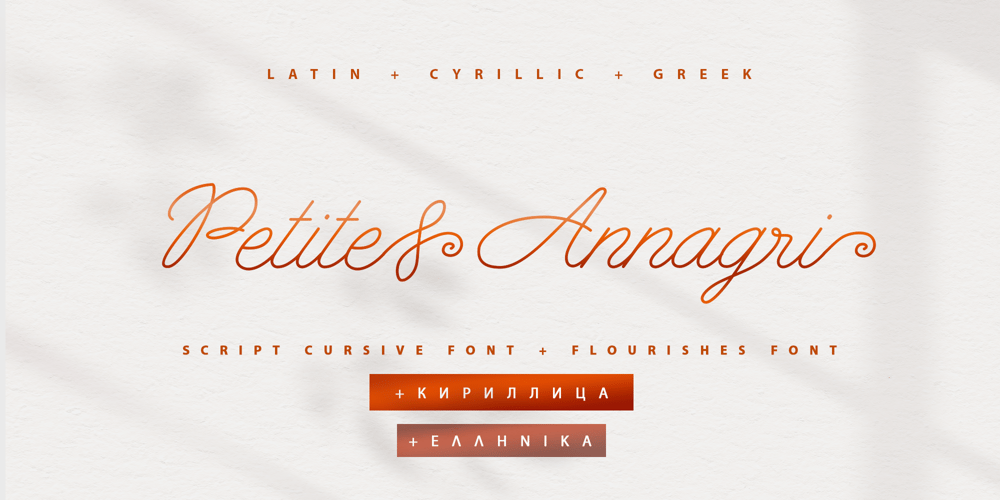
Petite Annagri Cyrillic
Petite Annagri Cyrillic font
Petite Annagri Cyrillic Font Family was designed by Iryna Dviliuk and published by Ira Dvilyuk. Petite Annagri Cyrillic contains 2 styles and family package options. The font pair Petite Annagri Cyrillic will look gorgeous on wedding stationery, love stories, branding materials, monoline logos, business cards, Insta quotes, elegant fashion sketches, and much more.Petite Annagri script font contains the Cyrillic and Greek glyphs too.Petite Annagri is a pretty monoline cursive font, plus a Symbols font with 36 lovely monoline swirls, flourishes, and illustrations.Petite Annagri script font contains a full set of uppercase and lowercase letters. Petite Annagri Symbols is a font with over 36 hand-drawn monoline elements, illustrations, and swashes that can help you to make your design unique and matchless. Combine and merge swashes, flourishes, and illustrations to create your own designs and make borders, frames, dividers, logos, and more. To make the swirl or flourishes in the beginning or in the end of the word just type the letter (A-Z or a-z and 0-9 keys) and choose the included Petite Annagri Symbols font. See preview images.Multilingual Support for 33 languages: Latin glyphs for Afrikaans, Albanian, Basque, Bosnian, Catalan, Danish, Dutch, English, Estonian, Faroese, Filipino, Finnish, French, Galician, Indonesian, Irish, Italian, Malay, Norwegian Bokmål, Portuguese, Slovenian, Spanish, Swahili, Swedish, Turkish, Welsh, Zulu. Also, the Greek language is supported.And Cyrillic glyphs support for Russian, Belorussian, Bulgarian and Ukrainian languages Kazakh.Works perfectly on the Canva platform.For Cricut & Silhouette recommended.